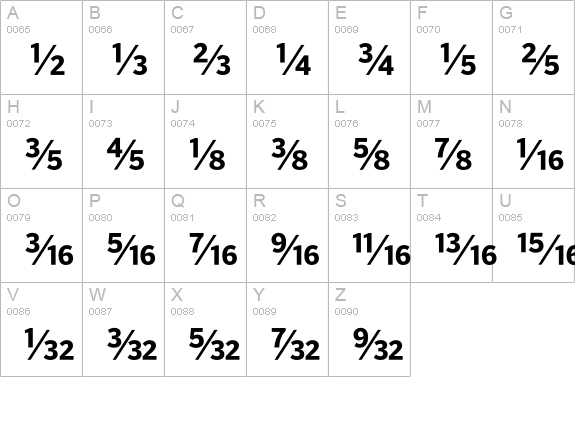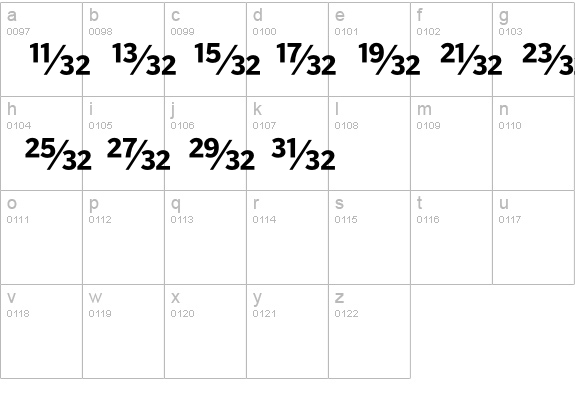
PoynterAgate-RegularFracTwo Font Details
PoynterAgate-RegularFracTwo font is a beautiful and elegant typeface that exudes sophistication and professionalism. Its classic and timeless design makes it suitable for a wide range of projects, from print materials to digital content. The font is meticulously crafted with attention to detail, resulting in a high-quality and polished appearance. What sets PoynterAgate-RegularFracTwo font apart is its versatility and readability, making it perfect for headlines, body text, and everything in between. The font's clean lines and sharp edges give it a modern yet refined look that is sure to make your designs stand out. The best part is that PoynterAgate-RegularFracTwo font is available for free download at FontsMarket.com. So whether you're a professional designer looking for a new go-to font or a hobbyist wanting to elevate your projects, this font is a fantastic choice. Download PoynterAgate-RegularFracTwo font today and add a touch of sophistication to your next project.